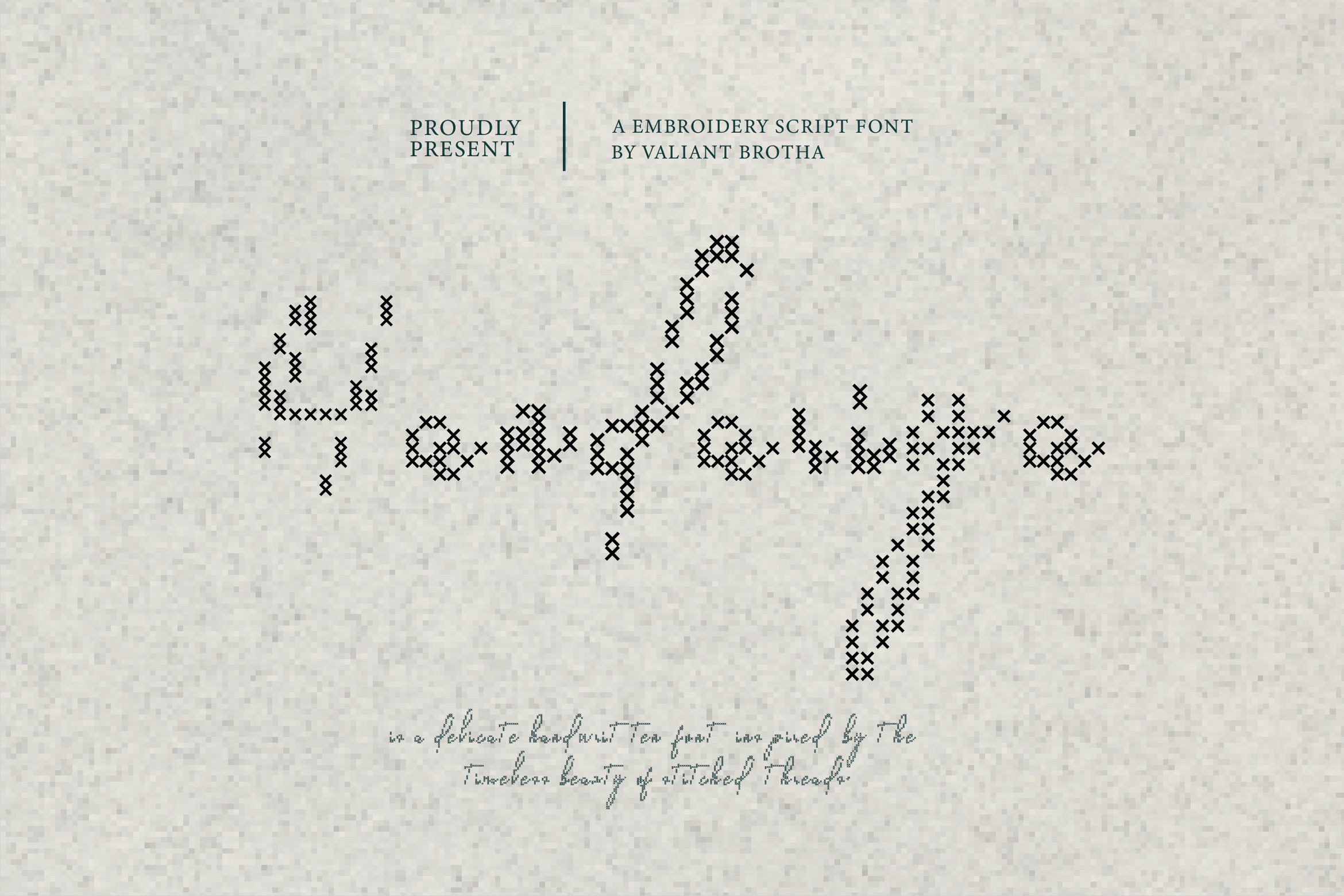
Handriya | A Embroidery Script Font
Handriya is a delicate embroidery script font that captures the beauty of handcrafted stitching in a graceful handwritten form.